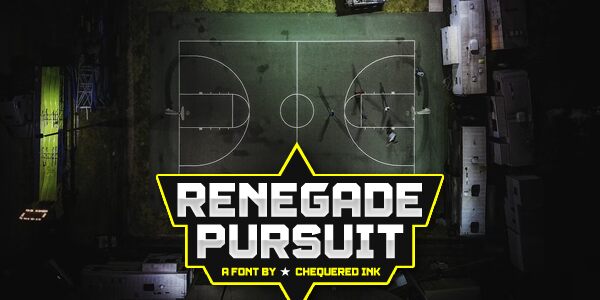
Renegade Pursuit
Renegade Pursuit is a bold and daring display font designed by Chequered Ink. Its retro style and expanded width make it perfect for projects that require a vintage, 80s-inspired feel. Use it to create eye-catching posters, flyers, or album covers that demand attention. Renegade Pursuit's thick strokes and unique letterforms will give your designs an edgy, rebellious vibe that's sure to stand out from the crowd. Whether you're designing for a music festival, clothing brand, or any other project that needs an extra dose of attitude, Renegade Pursuit is the typeface for you.